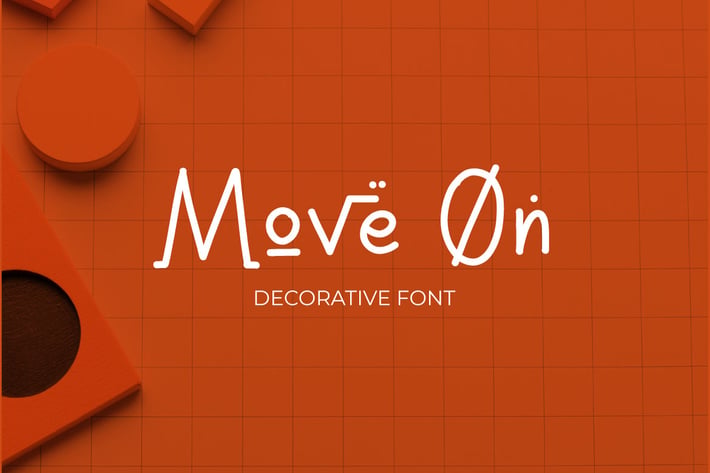
Move On - Decorative Font
Introducing Move On — a breathtaking decorative display font that will elevate your design projects to new heights. With its elegant and intricate details, Move On is the perfect choice for adding a touch of sophistication and charm to any creative endeavor.
Designed with the modern designer in mind, Move On is fully compatible with both print and digital applications. Whether you're working on a high-resolution poster or a sleek website design, Move On will maintain its stunning clarity and legibility, ensuring that your message shines through loud and clear.